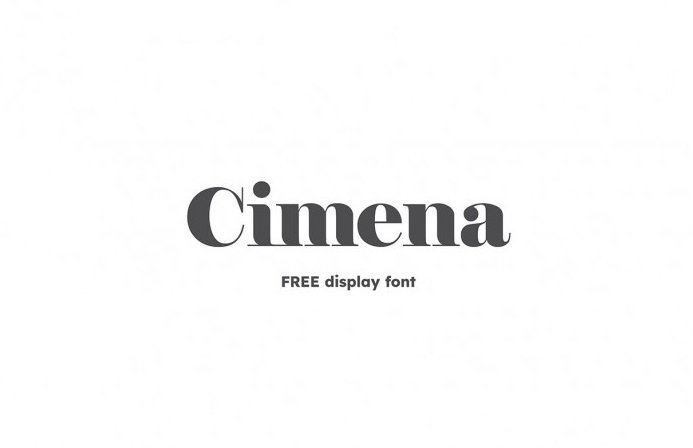
Cimena Font
Cimena Font is an elegant and unique designed font package by Fodor Szabolcs. Cimena is a versatile font for many design project such as logo design, branding, poster, magazines, labels, merchandise, invitation, presentation, advertising and so much more!